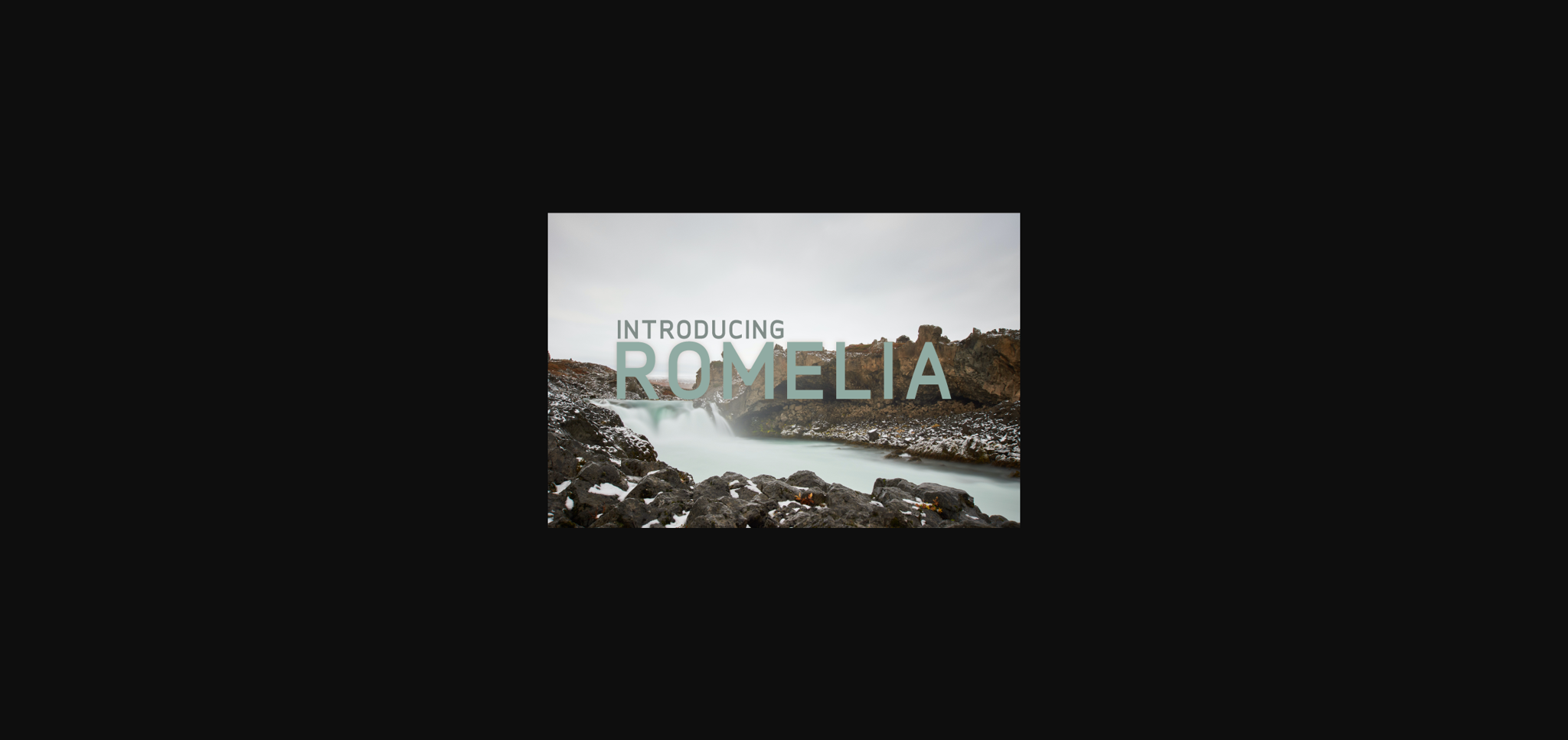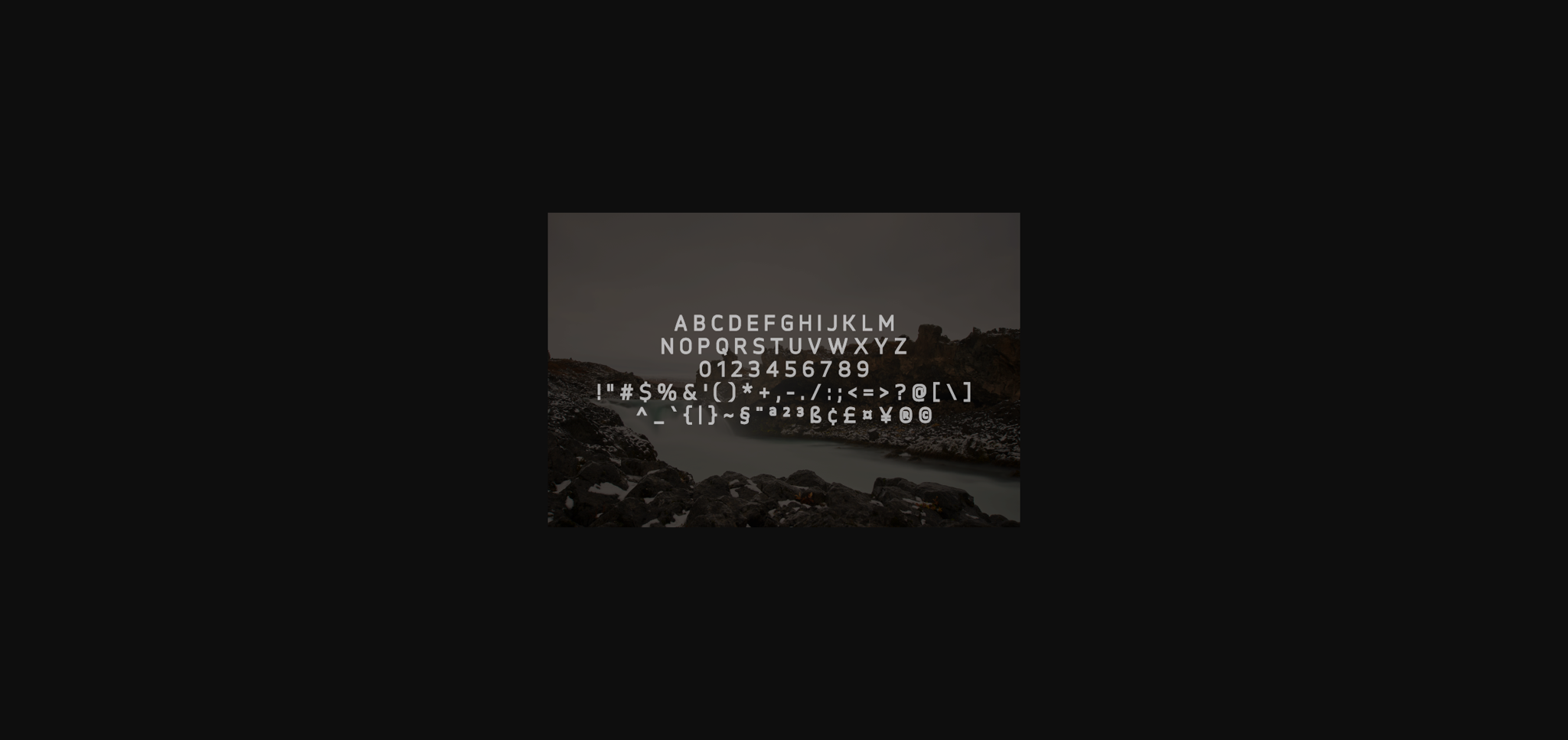
Romelia is a fancy, contemporary sans serif font. It will look outstanding in any context, whether it’s being used on busy backgrounds or as a standalone headline!